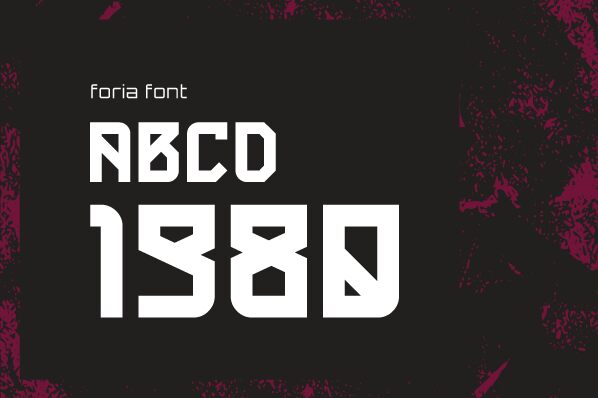
Foria
Foria font by Mhtw Garage is a techno display font with an angular structure and geometric influences. It’s futuristic, a bit minimalist with steep corners and only horizontal straight lines – no curves, vertical lines, or circles here! It’s uncommon for the majority of fonts and thus Foria will instantly stand out in any of your designs.
This free techno display font is one of those that can transfer great ideas into practice. Be it advertisements, posters, packaging, labels, or games – all are prone to be impacted. Webpages can also look much cooler when Foria is used in headings with large sizes where they’ll grab all the attention.